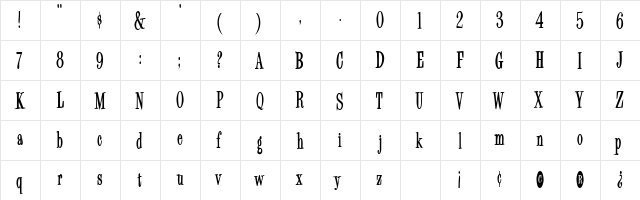
SecretarialPool Regular
Design Context for SecretarialPool Typeface
SecretarialPool takes a measured approach to typography — its balanced proportions and neutral character make it a reliable workhorse for both digital and print work.
Pro Tip: Use SecretarialPool in both headline and body roles to test its range before committing to a single application.